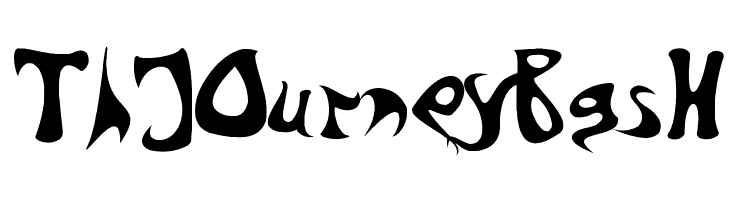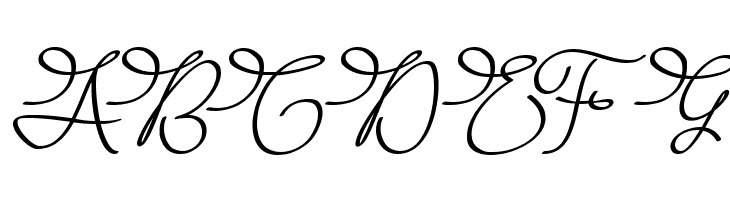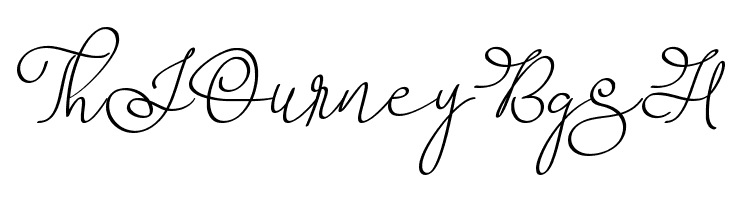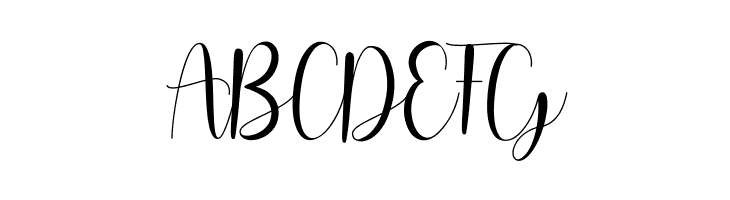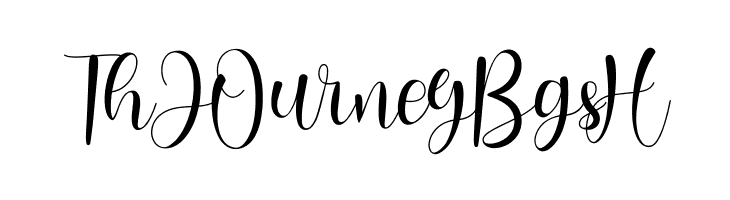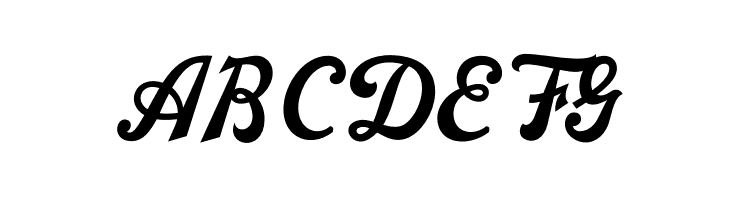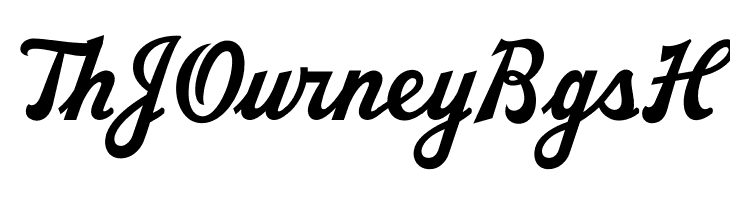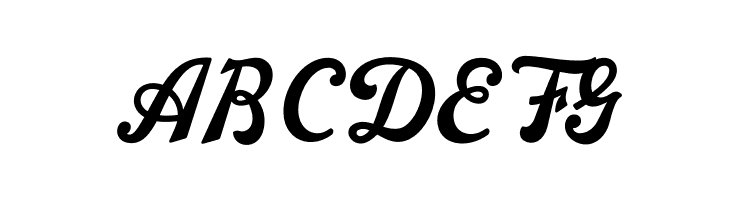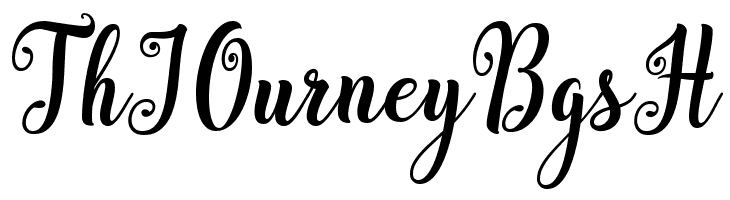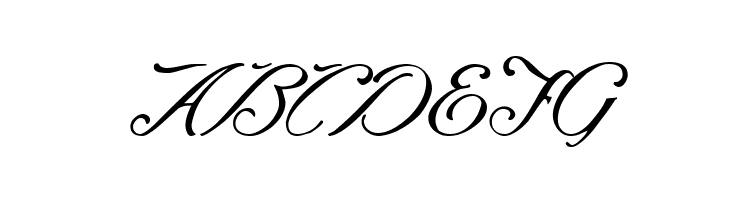
• Baraquiel
• Barbecue Chicken Regular
A bold, brush-style font with a lively, handcrafted appearance.
• Barbed Ink
• BargainScript
An elegant script font with flowing cursive strokes and decorative swashes.
• barisha script - Personal Use
A flowing, calligraphic script font with elegant, interconnected letters.
• Barista Script
A graceful script font with fluid, interconnected strokes and elegant flourishes.
• Barley Script PERSONAL USE
A bold, cursive script font with fluid, dynamic strokes.
• Barney Rounded PERSONAL USE Regular
A playful, rounded script font with smooth curves and flowing lines.
• Barney Script PERSONAL USE Regular
A bold, cursive script font with elegant, flowing strokes and a lively appearance.
• Baroque Script
An ornate script font with elaborate swashes and Baroque-inspired elegance.